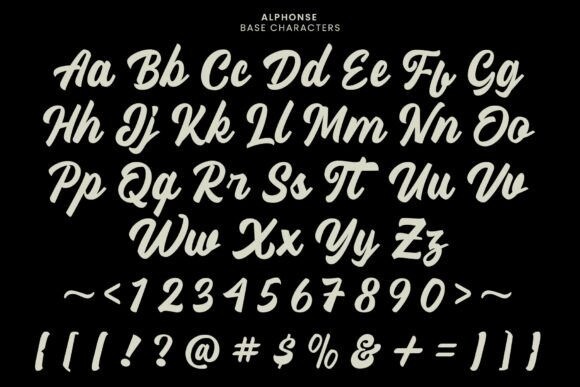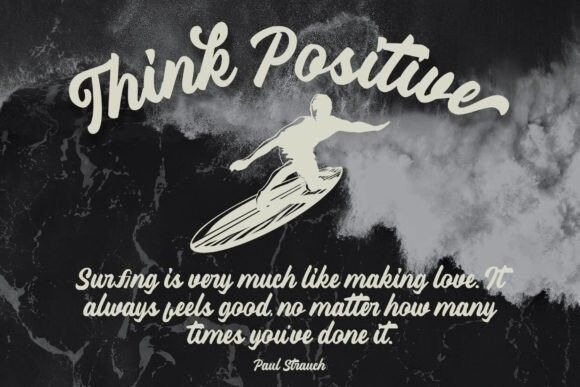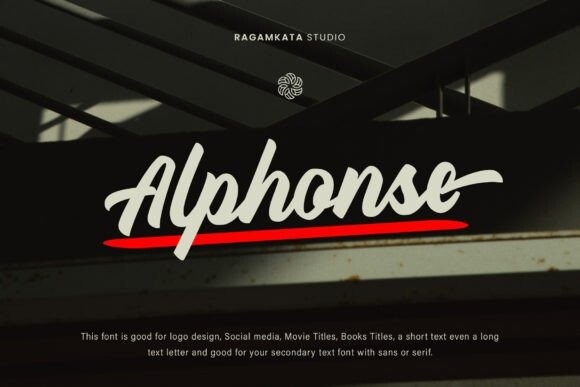
Alphonse Font
Alphonse Font exudes charm with its distinctive letter details. Crafted with a bold yet modern style, this font presents characters that are not just clear but also invite the eye to explore the beauty of its typography. With available alternate swash accents, each word comes alive, allowing users to express their creativity in an elegant and captivating manner. This font is good for logo design, Social media, Movie Titles, book titles, short text even long text letters, and good for your secondary text font with sans or serif.